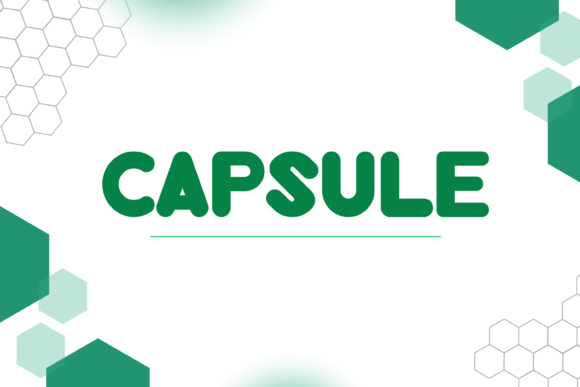
Introduction to Capsule Font
Introducing β€œCapsule”, designed with a sleek and modern look, reminiscent of a capsule shape.
This font is perfect for those looking for a clean and beautiful design, with large, bold lettering and numbers that demand attention With its easy-to-read letters and numbers, this font is ideal for branding, advertising, and marketing materials.
Key Features of Capsule Font
Why Choose Capsule Font?
Capsule Font offers exceptional quality and versatility, making it a valuable addition to your design toolkit. Whether you’re creating for personal projects or commercial use, Capsule Font delivers professional results.